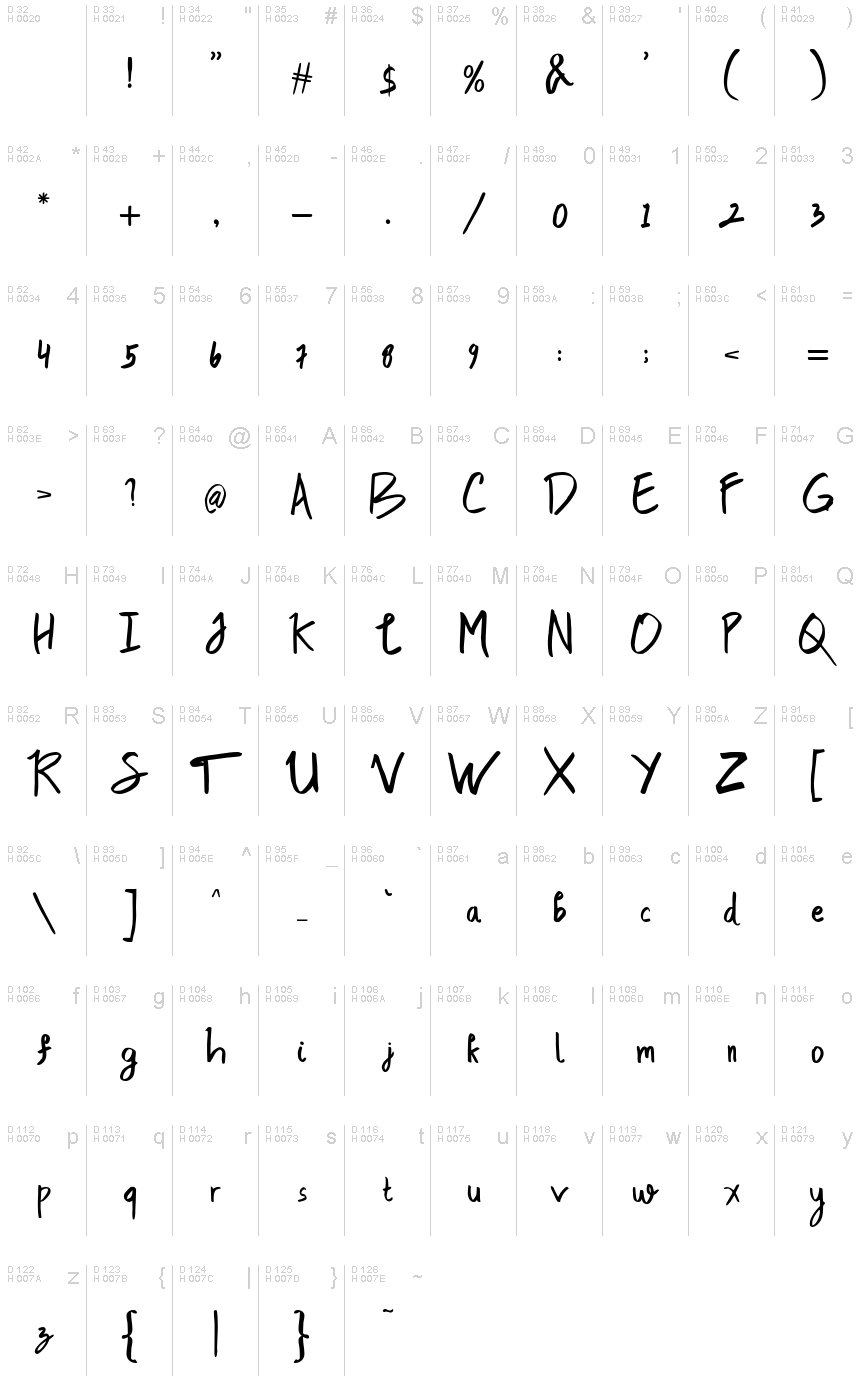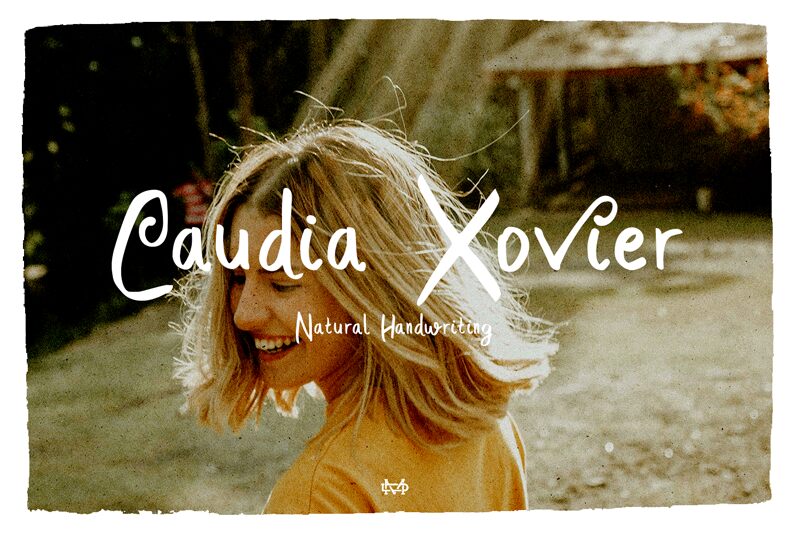
Caudia Xovier Demo Regular
Caudia Xovier font is a handwritten typeface from madeDeduk that marries personal expression with casual elegance, perfect for your next project. Inspired by the beauty of lettering, the design style is very clean and contemporary yet possesses careful details that truly set it apart. The balanced contrast between strokes presents an admirable balance that pleases any reader.
This free handwritten font will shine in several possible uses such as branding, packaging, invitation cards, and headlines both in magazines and articles. Additionally, it’s appropriate for social media posts and ads, book covers and body texts, websites designs including blogs!